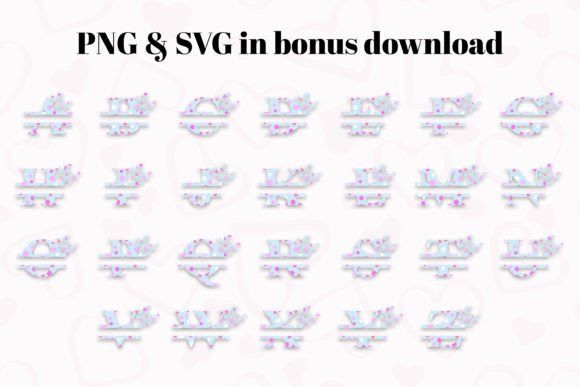
Let Your Designs Bloom with the Charming Blossom Monogram Blue Font
Have you ever been working on a design project, and the perfect font just seemed to be missing? You envision a beautiful monogram, adorned with delicate flowers and a soothing blue hue, but you can’t quite find the right combination of style and elegance. That’s where the Blossom Monogram Blue Font comes in – a delightful monogram font that brings a touch of nature’s beauty to your designs.
This charming font is perfect for personalizing and adding a unique flourish to your projects, whether it’s a custom wedding invitation, a baby blanket, or a special gift for a loved one. With its effortless blend of elegance and simplicity, the Blossom Monogram Blue Font is an ideal choice for designers looking to create stylish monograms that truly stand out.
Blossom Monogram Blue Font Key Features
- Unique Characteristics: Ornate, hand-drawn design with intricate details and flourishes, ideal for creating elegant and sophisticated typography
- Font Weight: Multiple font weights, including light, regular, bold, and extra bold, allowing for versatile typographic styling
Blossom Monogram Blue Font Review
I recently had the chance to work with the “Blossom Monogram Blue Font” and here’s my honest review.
- The unique blend of elegance and whimsy in this font makes it perfect for adding a touch of sophistication to any design project.
- The blue color variation adds a lovely pop of color, giving it a distinct personality that can elevate any brand identity.
- The font is highly customizable, allowing designers to adjust the size, spacing, and style to suit their specific needs.
- It pairs well with other fonts, making it a great addition to any design collection.
- The font may not be the best choice for large blocks of text, as it can become overwhelming and difficult to read.
- Some users may find the font too ornate or busy, which can detract from the overall design.
- The blue color variation can be a bit too bright for some designs, so it’s essential to balance it with other elements.
Overall, I think the “Blossom Monogram Blue Font” is a great addition to any designer’s toolkit. While it may have some limitations, its unique style and customizability make it a great choice for the right project.
Some popular use cases for Blossom Monogram Blue Font include:
– Creating elegant wedding invitations and stationery.
– Designing luxury brand logos and marketing materials.
– Adding a touch of sophistication to business cards and resumes.
For optimal results, use Blossom Monogram Blue Font in conjunction with other elegant fonts and design elements to create a cohesive and professional look.